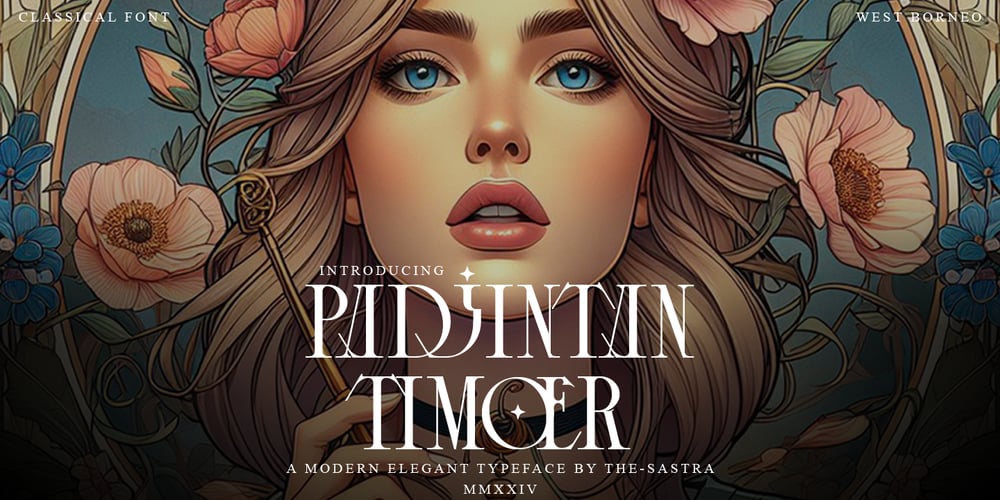
Padjintan timoer
Padjintan timoer font
Padjintan timoer Font Family was designed by Deni Dessastra and published by the-sastra. Padjintan timoer contains 1 styles and family package options. This Padjintan timoer font is inspired by art nouveau style & modern elegant lifestyle.Padjintan timoer font is perfect for badges, branding, labels, apparel, headlines, signage, logo, quote, apparel and other creative applications.For any help regarding this file, please feel free to contact me.Thank you